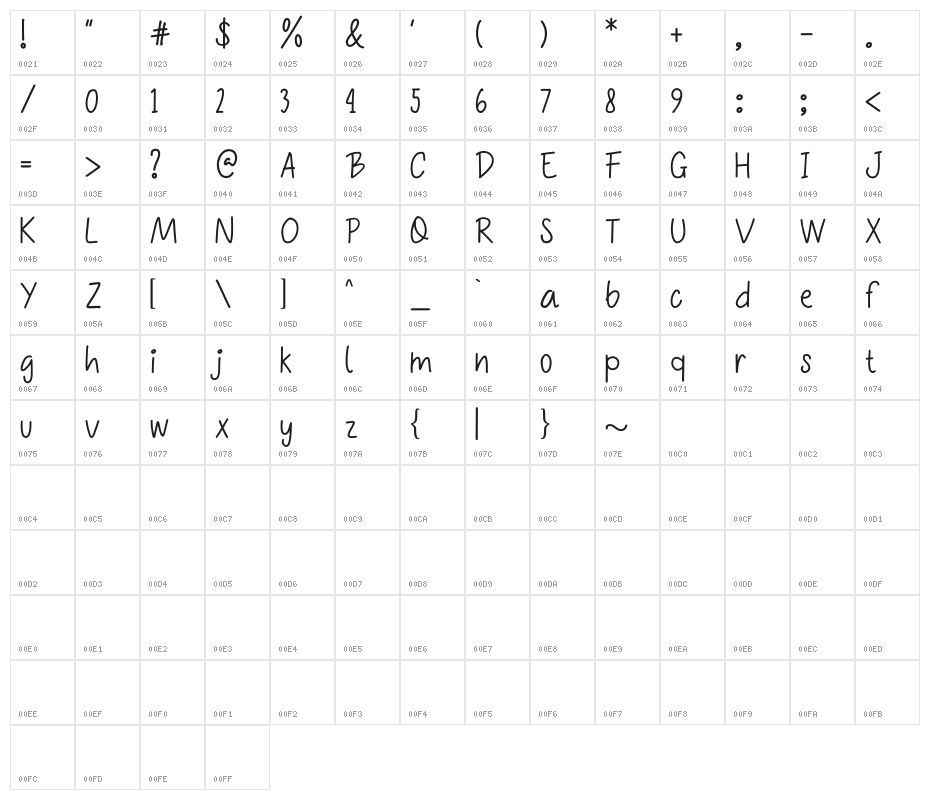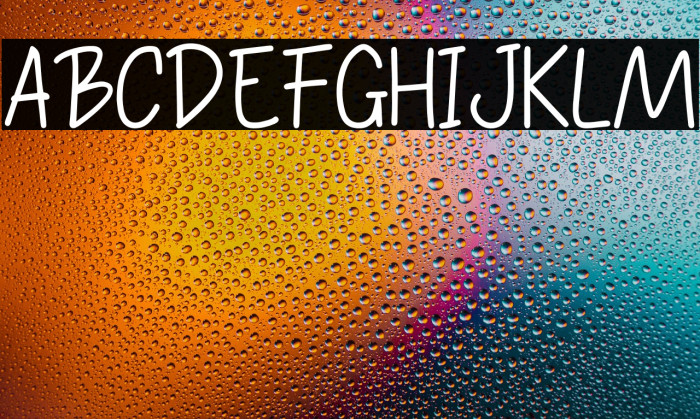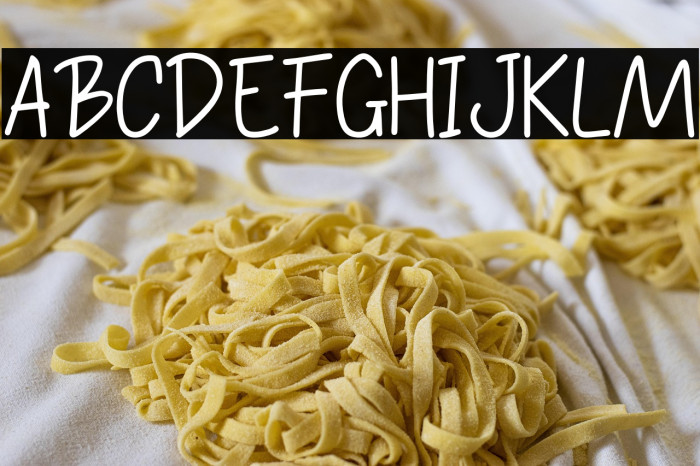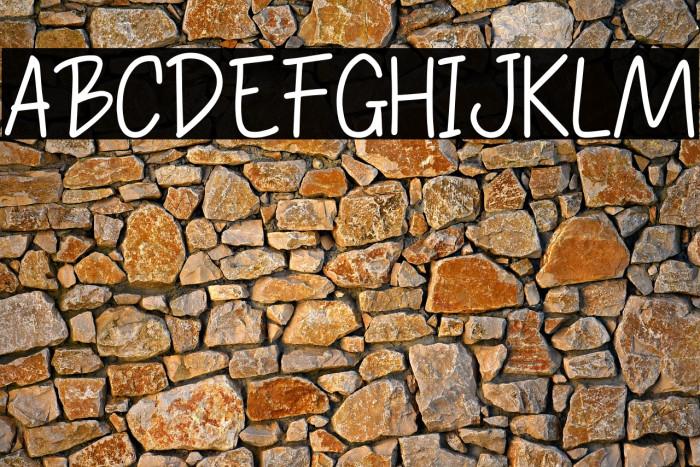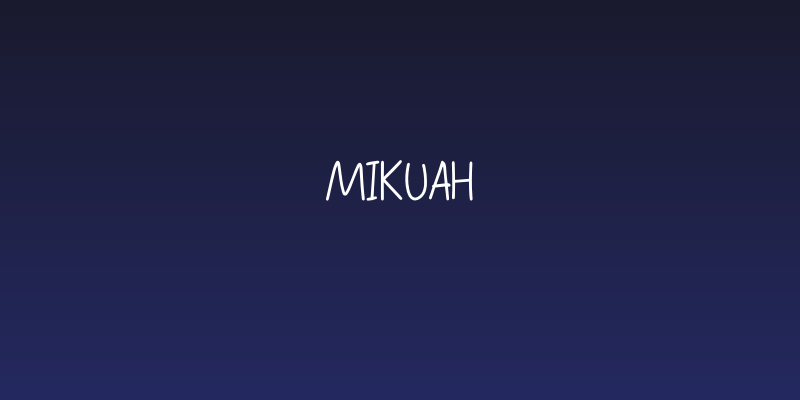
Mikuah Font
Mikuah Description
This playful and casual font features a handwritten style that exudes a friendly and approachable vibe. The characters are slightly rounded with a consistent stroke width, giving it a uniform appearance. The uppercase and lowercase letters maintain a whimsical touch, making it ideal for projects that require a personal and informal tone. The numerals and special characters are designed to complement the overall style, ensuring readability and coherence across different uses.
| Use Case | Headlines, Informal text, Branding |
| Proposed Projects | Ideal for greeting cards, children's books, casual branding, and social media graphics. |